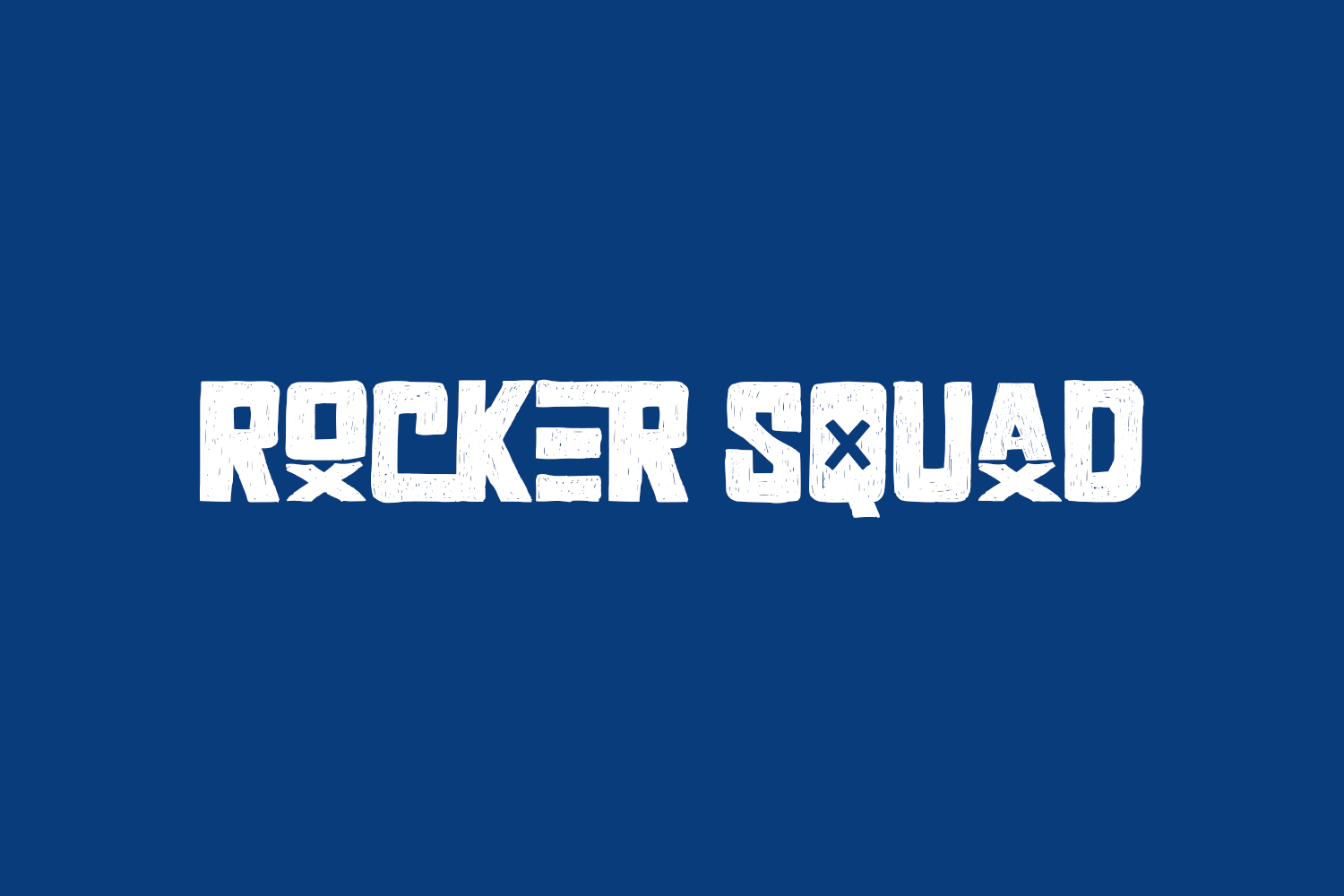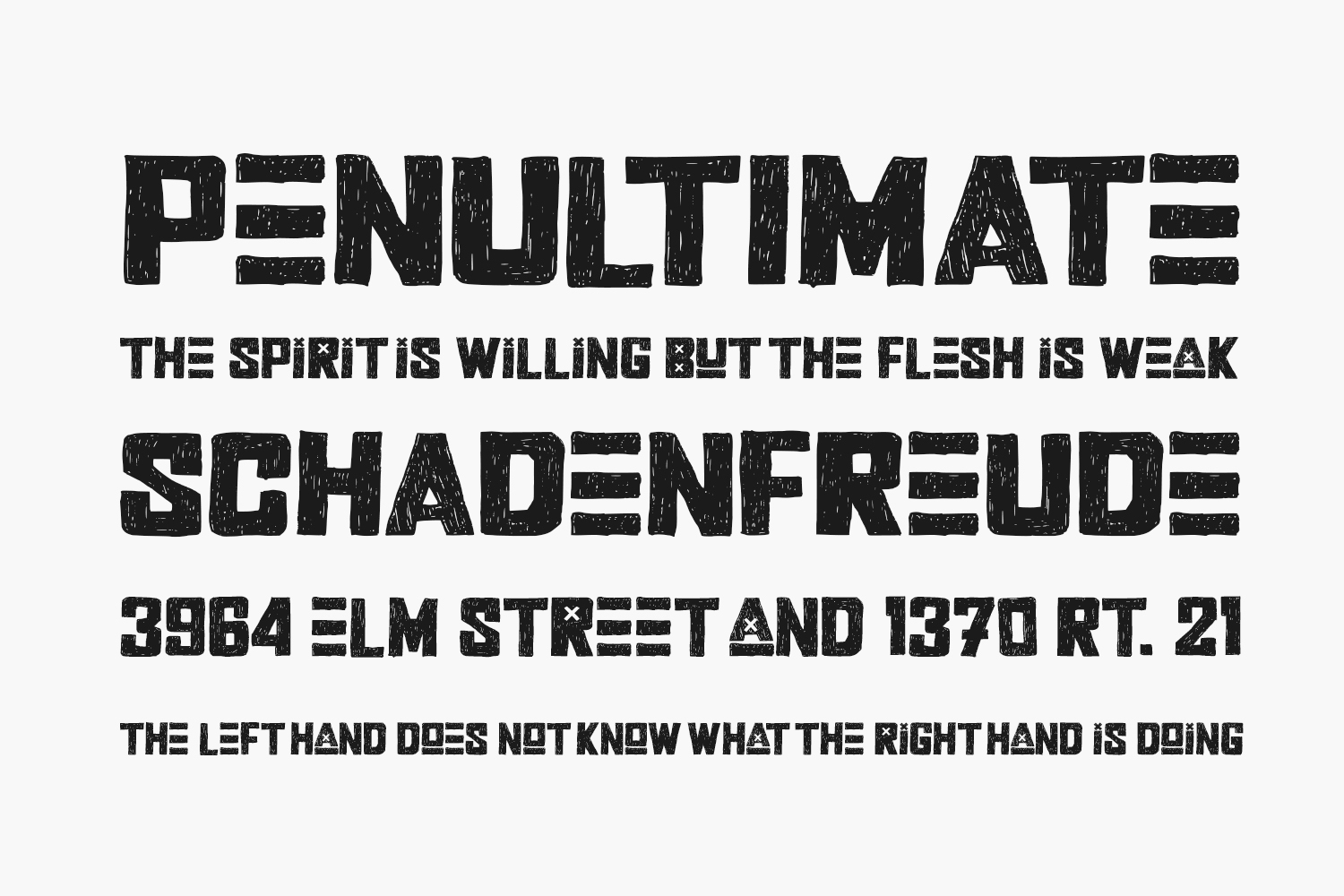
Rocker Squad Free Font presents a stylish and bold lettered display font exuding a street art vibe. This font is perfect for a variety of designs, including t-shirts, sportswear, logos, advertisements, clothing, and beyond. Rocker Squad Free Font is free for personal use only. Please purchase the full version for commercial use.
Designed by Letterara